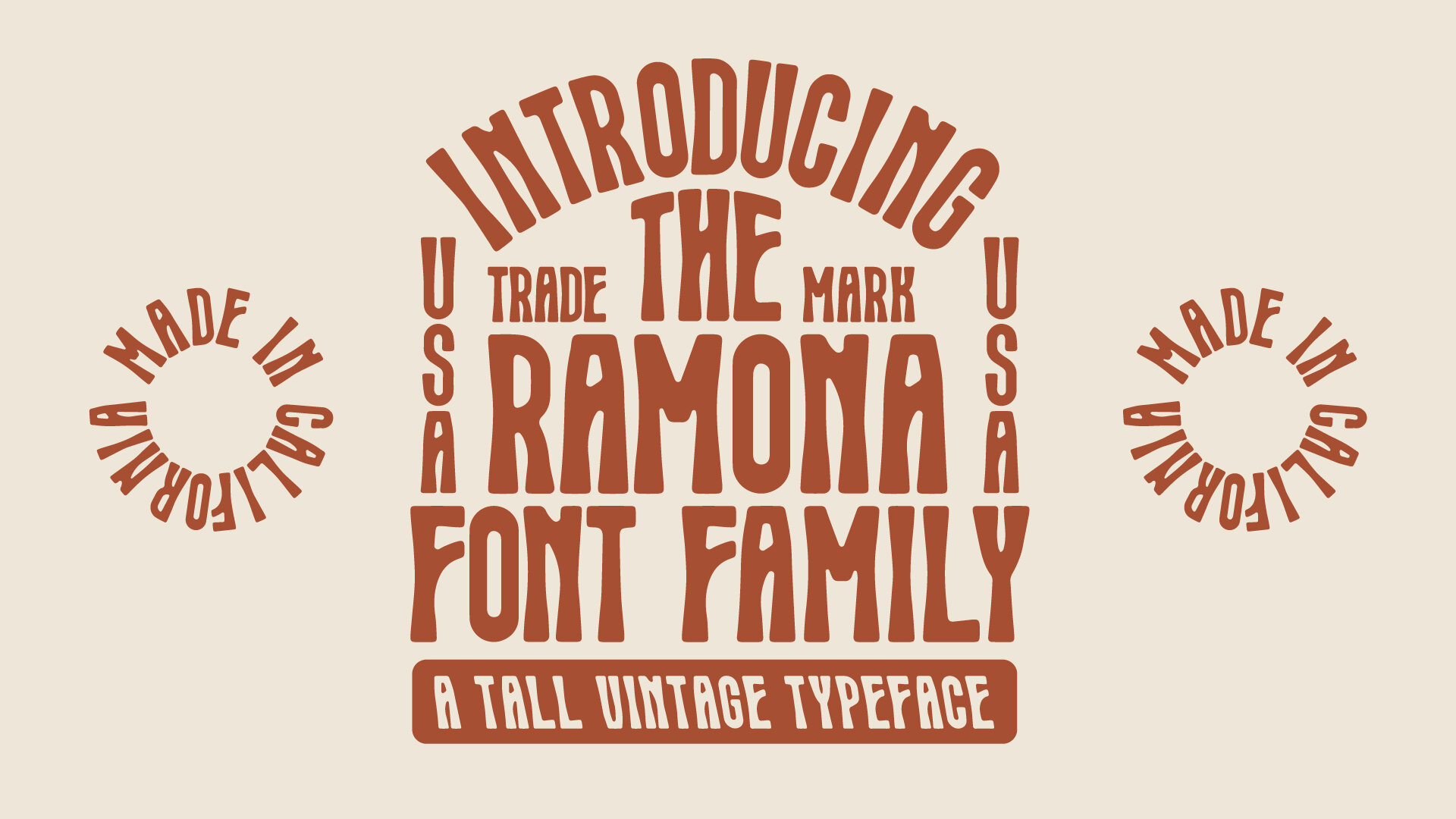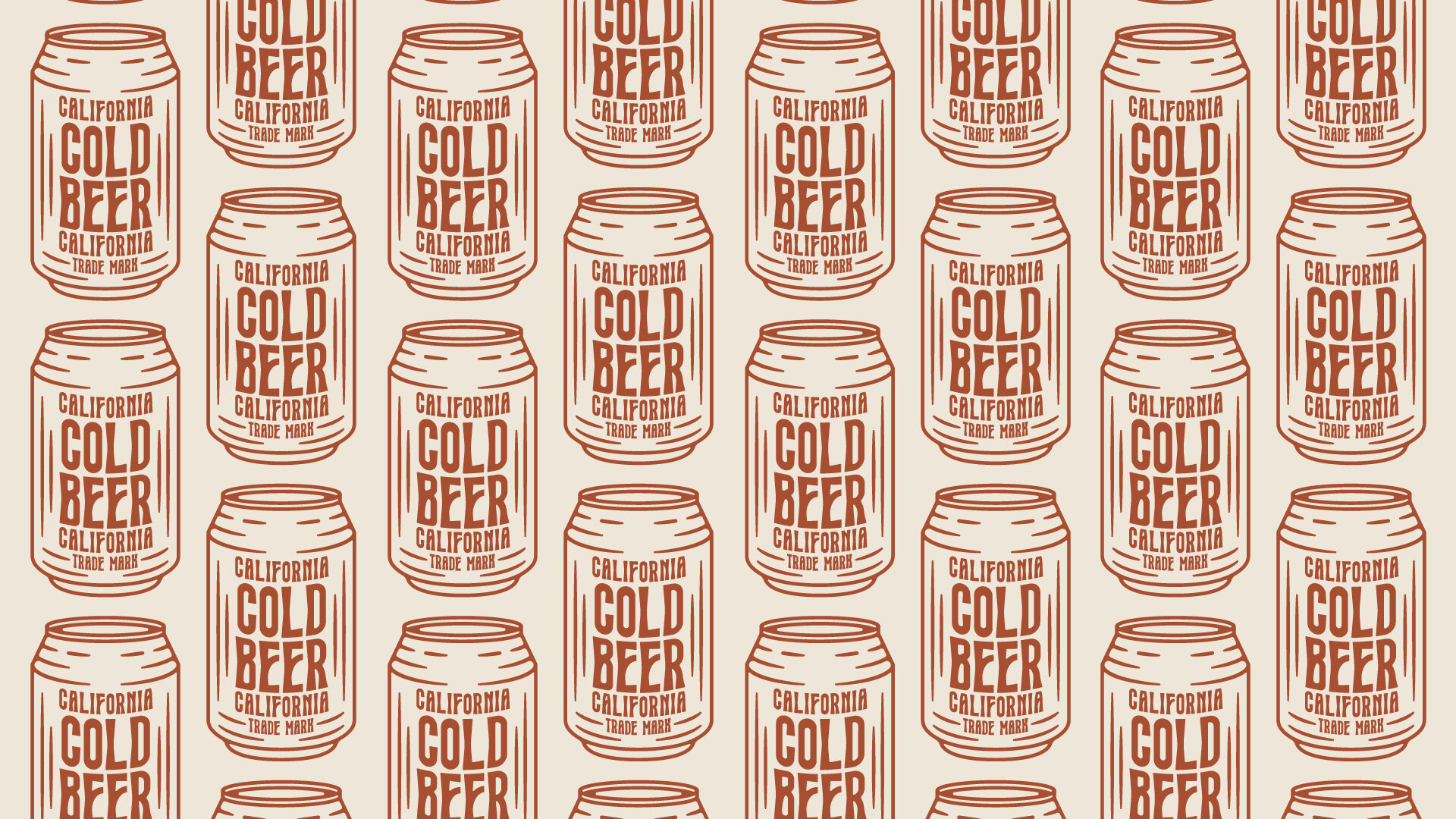
Ramona Typeface
The Ramona Typeface is a tall sans serif typeface. This font has a hint of that 70's groovy feel to it, with a modern twist. The Ramona Typeface comes in 4 type styles:
• Ramona Regular
• Ramona Rough
• Ramona Ink (my personal go-to)
• Ramonda Italic